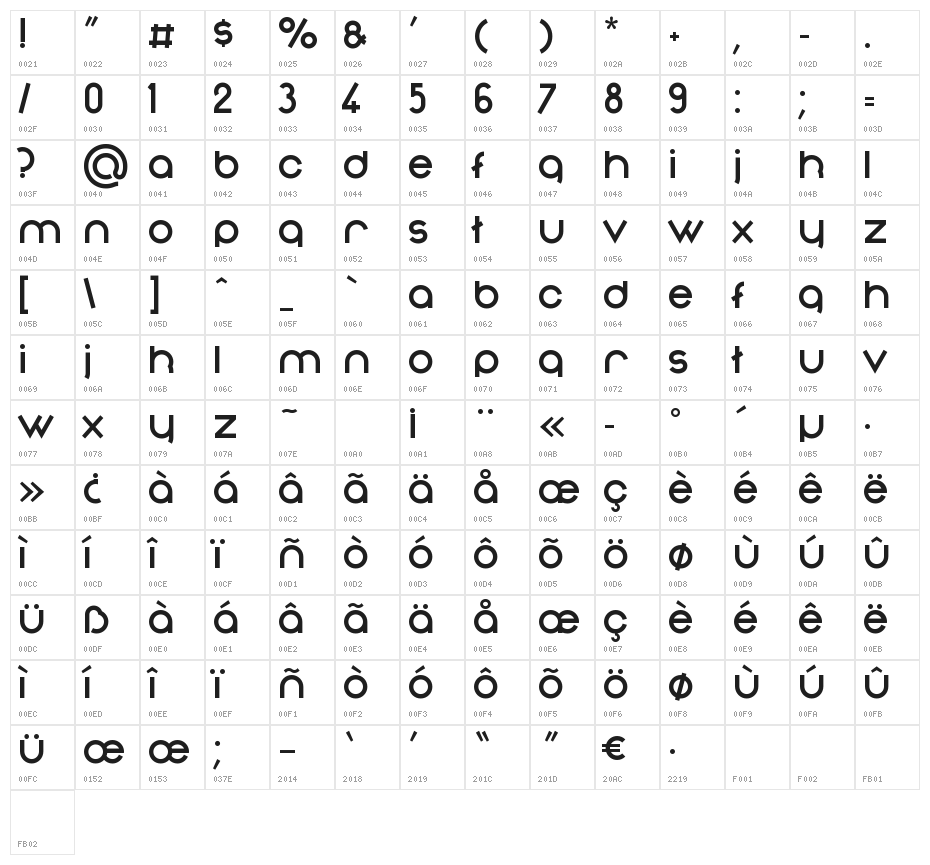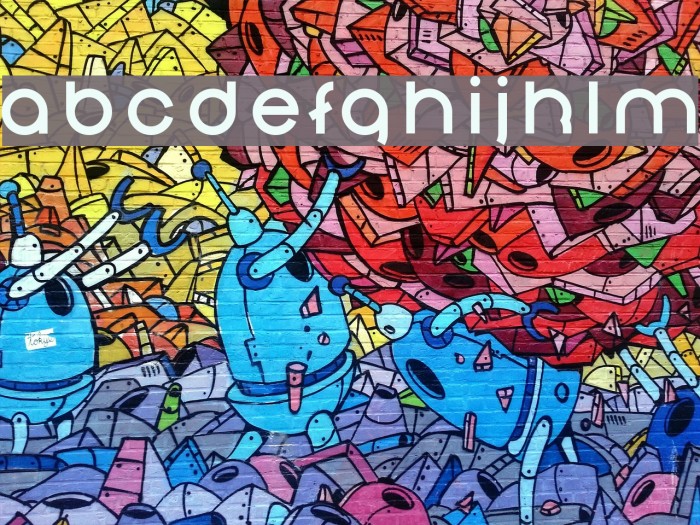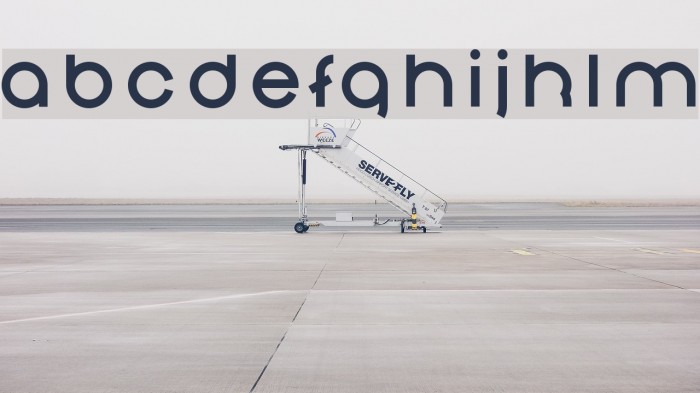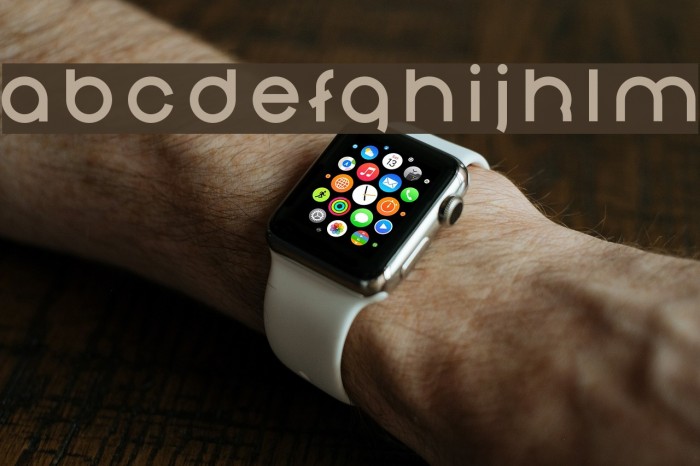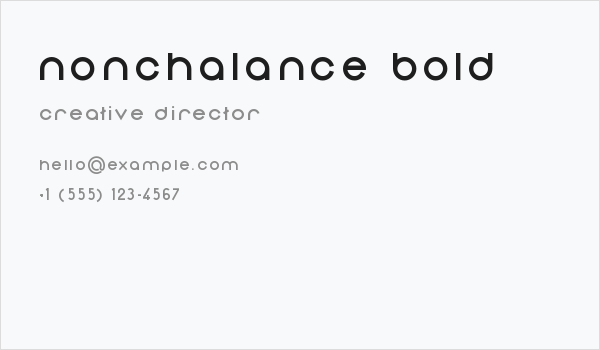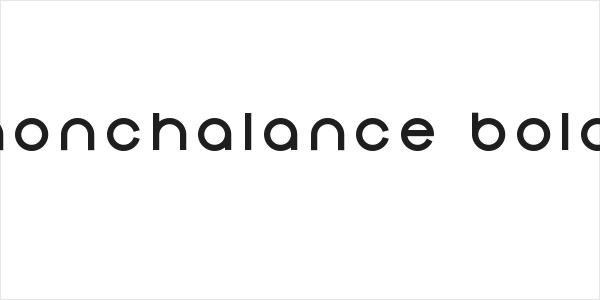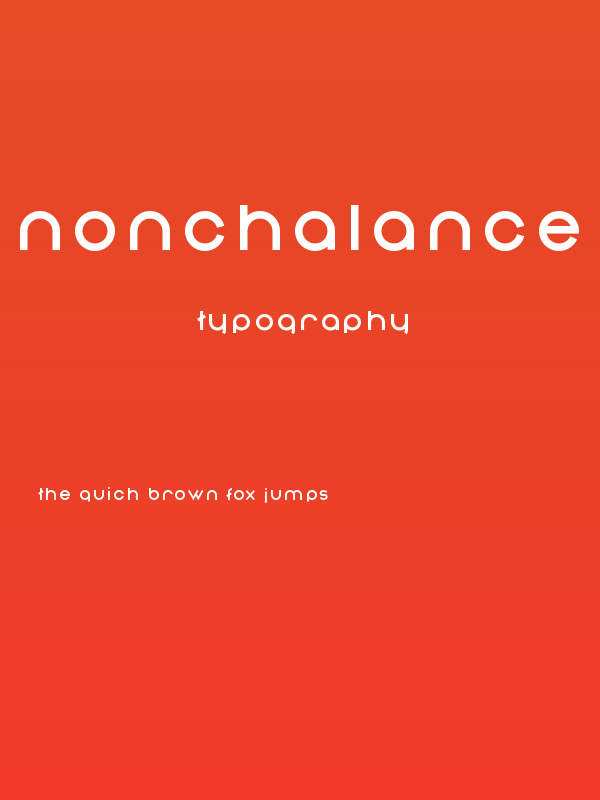
Nonchalance Bold Font
Nonchalance Bold Description
This font features a modern and clean design with a geometric sans-serif style. The characters are well-balanced with a consistent stroke width, giving it a bold and confident appearance. The rounded edges and uniform structure provide a friendly and approachable feel, making it versatile for various design applications. The numerals and special characters maintain the same geometric consistency, ensuring readability and aesthetic harmony across different uses.
| Proposed Projects | Ideal for branding, advertising, and digital media projects where a modern and approachable look is desired. |